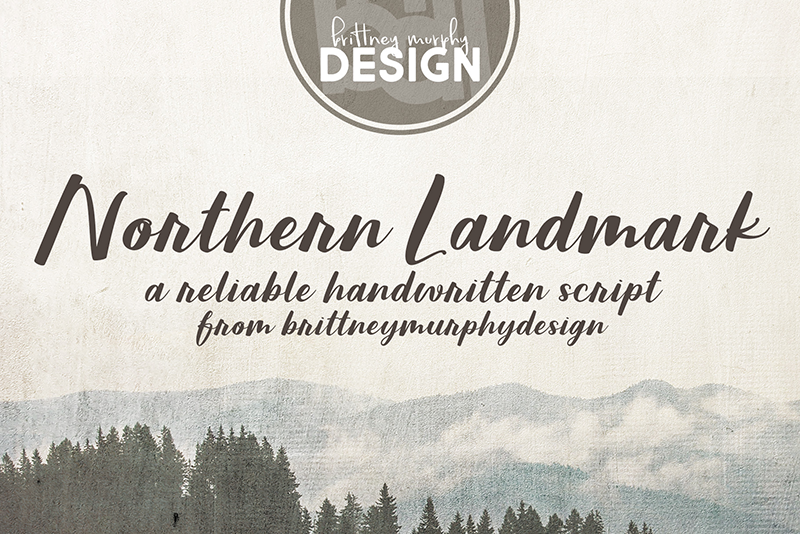
Font name: | Northern Landmark |
Author: | Brittney Murphy Design |
Note by Brittney Murphy Design | |
A thoughtful handwritten script with over 300 characters, including many accented letters for multilingual support. - - - Free for PERSONAL USE ONLY. Do not redistribute. For commercial use, please purchase a license: https://www.brittneymurphydesign.com/downloads/northern-landmark-font/ |